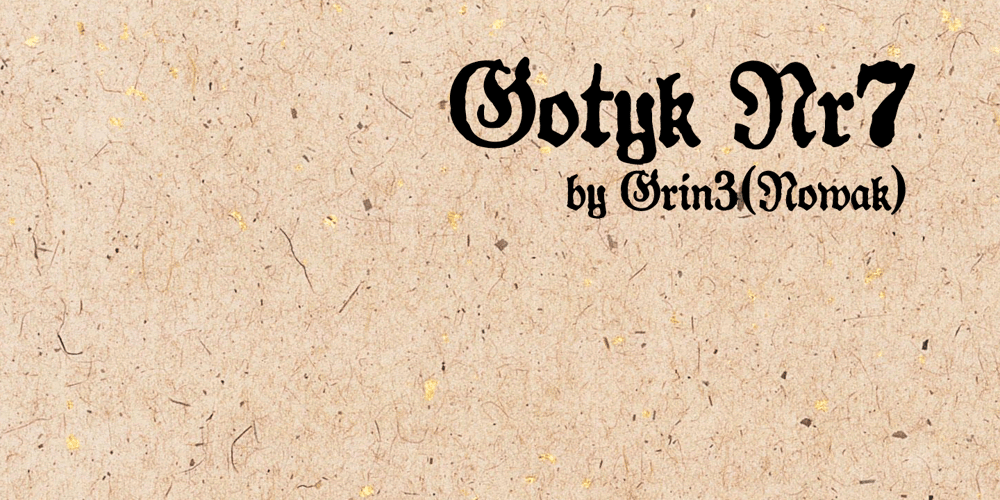
Gotyk Nr7 Font Family was designed by Bartek Nowak and published by GRIN3 (Nowak). Gotyk Nr7 contains 1 styles and family package options. Gotyk Nr7 is a new, completely redesigned and improved version of my font Gotyk Poszarpany, which was released for the first time in 2001. Language support includes Western, Central and Eastern European character sets, as well as Baltic and Turkish languages.